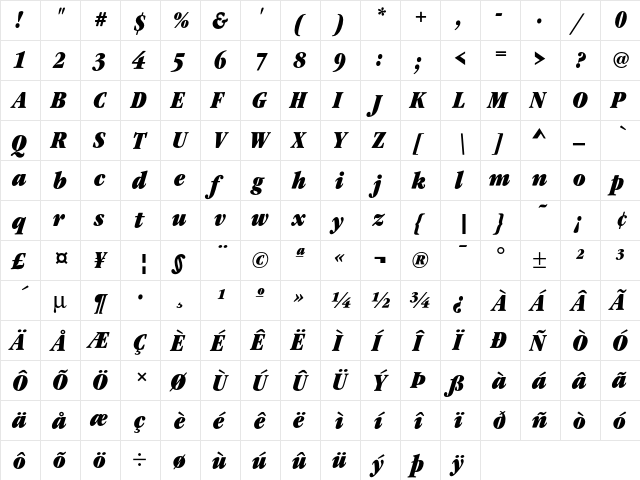
GaramItcTUltConIta Regular Font Preview
GaramItcTUltConIta Regular
Design Context for GaramItcTUltConIta Typeface
GaramItcTUltConIta offers clean, dependable letterforms without strong stylistic allegiance, making it a practical choice for designers who need flexibility.